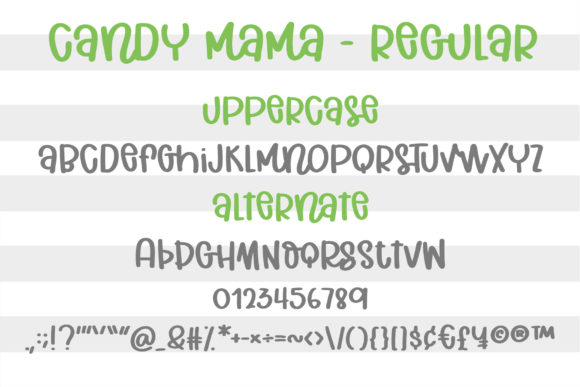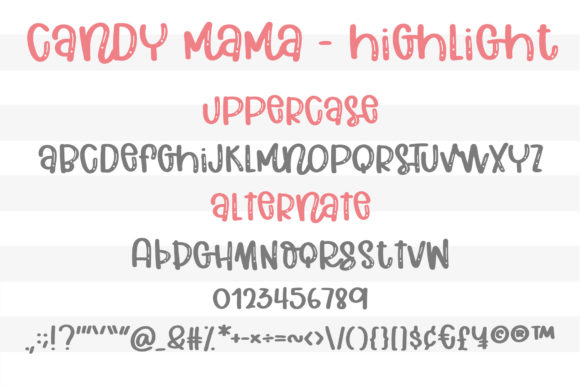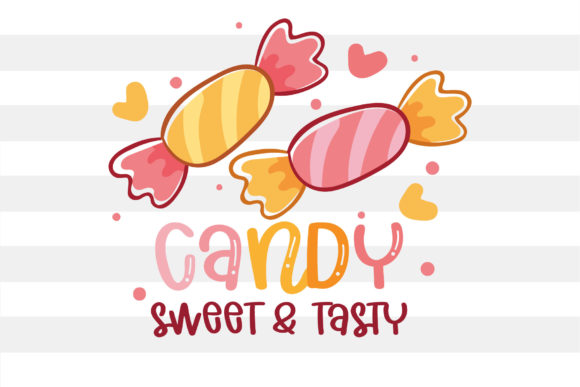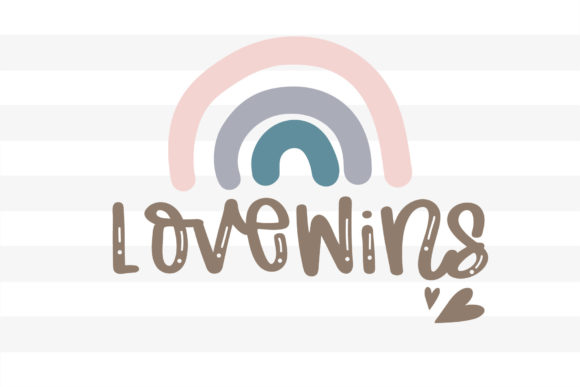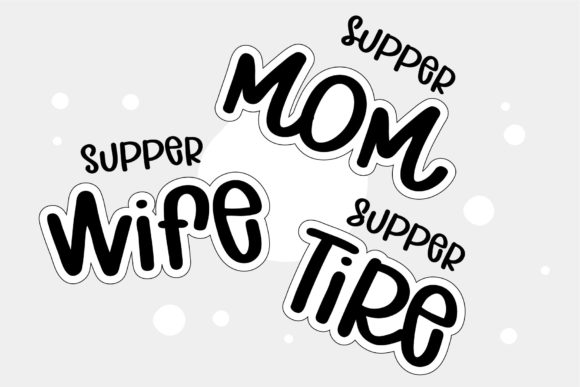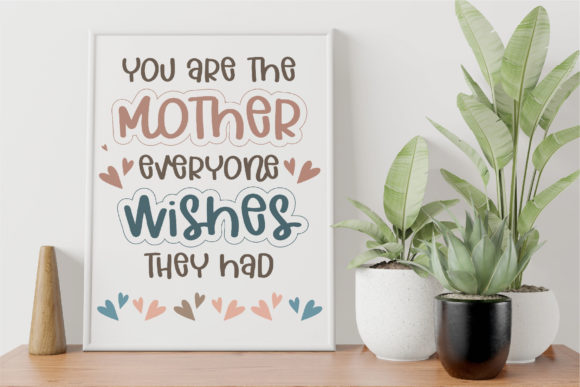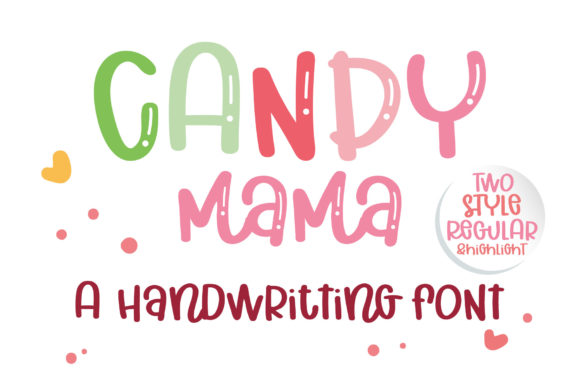
Candy Mama Font: The Sweetest Addition to Your Design Collection
Are you a designer or crafter looking for a font that’s as sweet as it is versatile? Look no further than Candy Mama Font! This adorable, handwritten font is perfect for creating eye-catching designs for kids’ projects, parties, and more. In this article, we’ll dive into the world of Candy Mama Font and explore its features, uses, and benefits.
What is Candy Mama Font?
Candy Mama Font is a cute, quirky, and relaxed handwritten font that’s sure to capture the hearts of designers and crafters alike. Its playful, informal vibe makes it an ideal choice for projects that require a personal touch. Whether you’re creating invitations, posters, or social media graphics, Candy Mama Font is the perfect companion for your design journey.
Features of Candy Mama Font
- Cute and Quirky: Candy Mama Font boasts a unique, whimsical style that’s sure to delight kids and adults alike.
- Relaxed and Handwritten: This font’s casual, handwritten feel makes it perfect for creating friendly, approachable designs.
- Perfect for Kids’ Designs: Candy Mama Font is specifically designed with kids’ projects in mind, making it an excellent choice for children’s parties, educational materials, and more.
- Bright and Bold: Pair Candy Mama Font with bright colors to create stunning, eye-catching designs that pop!
Uses of Candy Mama Font
Candy Mama Font is an incredibly versatile font that can be used in a wide range of design projects, including:
- Kids’ Party Invitations: Create adorable invitations that set the tone for a fun and festive celebration.
- Children’s Educational Materials: Use Candy Mama Font to create engaging, interactive learning materials that kids will love.
- Social Media Graphics: Add a touch of whimsy to your social media posts with Candy Mama Font.
- Posters and Flyers: Create eye-catching posters and flyers that showcase your brand’s personality.
Benefits of Using Candy Mama Font
So, why should you choose Candy Mama Font for your design projects? Here are just a few benefits:
- Instant Recognition: Candy Mama Font’s unique style ensures that your designs will stand out from the crowd.
- Emotional Connection: The font’s playful, friendly vibe helps create an emotional connection with your audience.
- Time-Saving: With Candy Mama Font, you can create stunning designs in no time – perfect for busy designers and crafters.
Tips for Using Candy Mama Font
To get the most out of Candy Mama Font, here are a few tips to keep in mind:
- Pair with Bright Colors: Combine Candy Mama Font with bright, bold colors to create stunning designs.
- Experiment with Sizes: Play around with different font sizes to add visual interest to your designs.
- Mix and Match: Don’t be afraid to combine Candy Mama Font with other fonts to create a unique look.
Candy Mama Font is a sweet and versatile addition to any design collection. With its cute, quirky style and relaxed, handwritten feel, it’s perfect for creating eye-catching designs for kids’ projects and more. Whether you’re a designer or crafter, Candy Mama Font is sure to become your new go-to font. So why wait? Download Candy Mama Font today and start creating your own sweet designs!